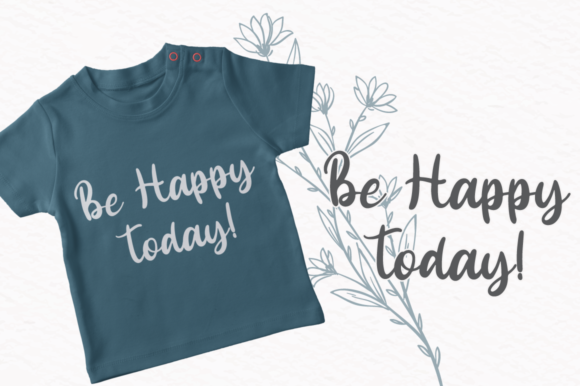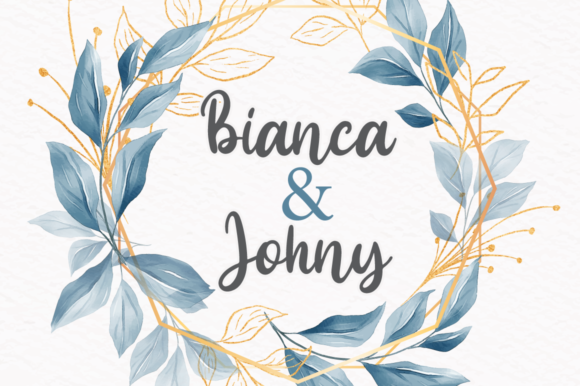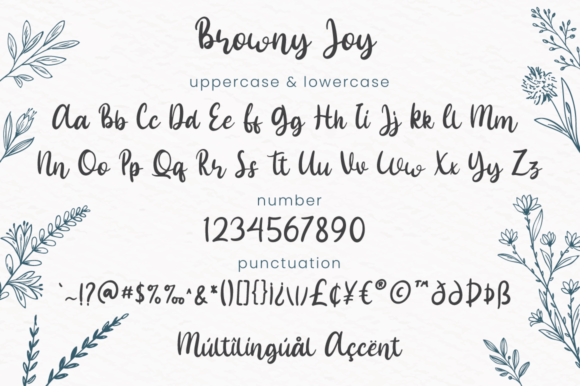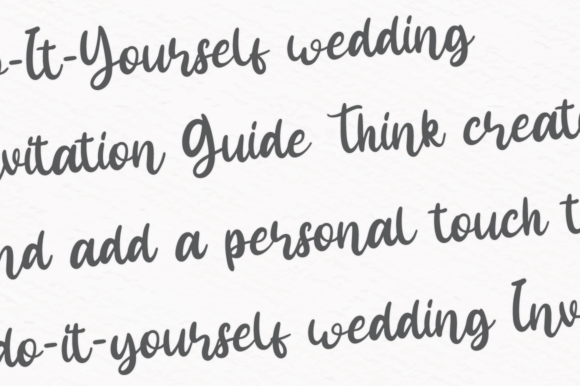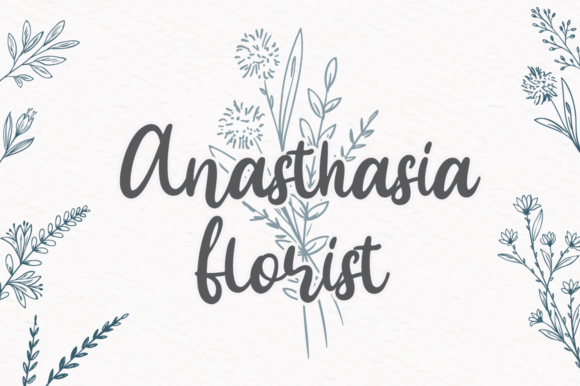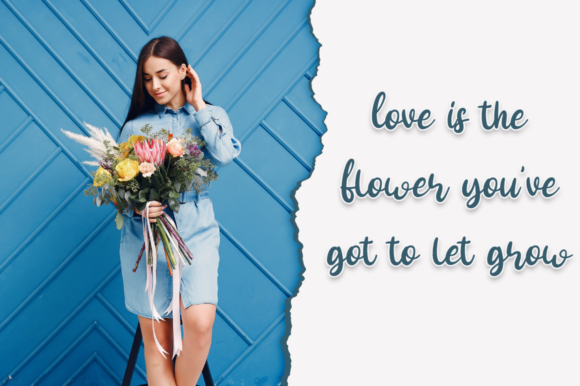
Browny Joy Font: Elevate Your Designs with a Timeless Handwritten Touch
In the world of typography, few fonts manage to capture the essence of elegance and charm as effectively as the Browny Joy Font. This incredibly distinct, delicate, and timeless handwritten font has become a favorite among designers and crafters looking to add a personal touch to their creations. Whether you’re working on wedding invitations, thank you cards, quotes, greeting cards, logos, business cards, or any other design that requires a handwritten aesthetic, Browny Joy is the perfect choice.
The Unique Characteristics of Browny Joy Font
Browny Joy Font stands out from the crowd due to its unique blend of delicacy and sophistication. Its handwritten nature gives it a warm, inviting feel that’s hard to replicate with more traditional fonts. The fluidity of its strokes and the gentle curves of its letters create a harmonious visual experience that draws the reader in. This font is not just a means of communication; it’s an expression of style and personality.
One of the key advantages of the Browny Joy Font is its versatility. It’s incredibly adaptable, making it suitable for a wide range of design applications. Here are a few ways you can use Browny Joy to elevate your designs:
- Wedding Invitations: Add a touch of romance and sophistication to your wedding invitations. The elegant strokes and delicate feel of Browny Joy make it perfect for conveying the joy and beauty of your special day.
- Thank You Cards: Express your gratitude with style. Browny Joy’s warm and inviting feel makes it ideal for thank you cards, adding a personal touch that makes the recipient feel valued.
- Quotes and Greeting Cards: Give your quotes and greeting cards a unique and memorable look. The distinctive nature of Browny Joy ensures that your message stands out and leaves a lasting impression.
- Logos and Business Cards: For businesses looking to convey a sense of elegance and professionalism, Browny Joy can be a great choice for logos and business cards. It offers a way to stand out from the competition while still appearing refined and sophisticated.
Why Designers and Crafters Love Browny Joy
Designers and crafters often seek fonts that not only look good but also provide a certain emotional resonance. Browny Joy Font ticks all the right boxes. Its timeless appeal ensures that your designs never go out of style, and its handmade quality adds a layer of authenticity that’s hard to achieve with more generic fonts.
Moreover, the ease of use and integration of Browny Joy into various design software makes it a practical choice for professionals and hobbyists alike. Whether you’re creating digital content or working on print projects, Browny Joy seamlessly integrates into your workflow, allowing you to focus on the creative aspects of your project.
Tips for Getting the Most Out of Browny Joy Font
To truly leverage the potential of Browny Joy, consider the following tips:
- Pair it with Complementary Fonts: While Browny Joy is beautiful on its own, pairing it with complementary fonts can enhance its appeal. Look for fonts that offer a contrast in style and weight to create visual interest.
- Experiment with Colors: The beauty of Browny Joy can be further accentuated by experimenting with different colors. Soft pastels, rich jewel tones, or classic black and white can all bring out different aspects of the font’s character.
- Play with Ligatures and Swashes: If available, using ligatures and swashes can add an extra layer of elegance to your designs. These elements can help create a more dynamic and visually appealing layout.
| Font Name | Browny Joy Font |
| Author | attypestudio |
Browny Joy Font is more than just a typeface; it’s a design element that can transform your creations. Its unique blend of delicacy, elegance, and timelessness makes it an invaluable tool for designers and crafters looking to add a personal, handwritten touch to their work. Whether you’re working on a wedding invitation, a business card, or any other design project, Browny Joy offers a way to elevate your work and make it truly memorable. So, why settle for ordinary when you can create something extraordinary with Browny Joy Font?